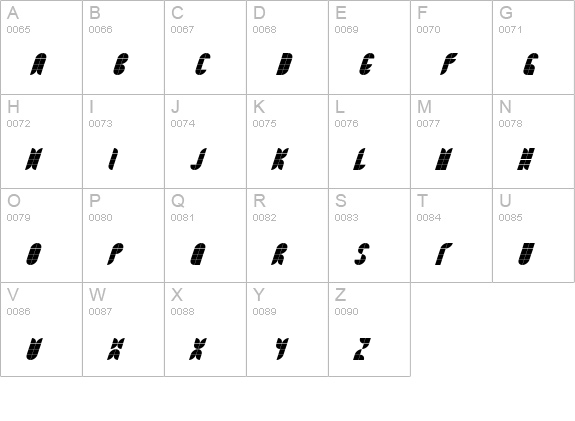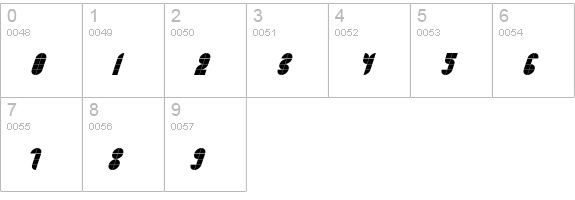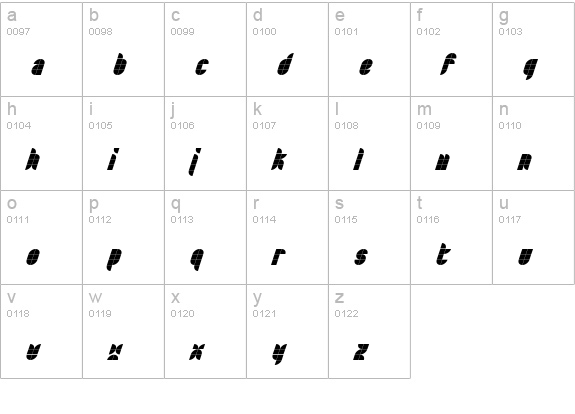
Bath HeavyItalic is a beautifully designed font that exudes elegance and sophistication. With its bold and stylish italicized characters, this typeface is perfect for creating eye-catching designs that demand attention. The sleek curves and sharp angles of Bath HeavyItalic make it a versatile choice for a wide range of projects, from branding to editorial design. The best part? Bath HeavyItalic is available for free download at FontsMarket.com. This means you can add this stunning font to your collection without spending a dime. Whether you're a seasoned designer looking for a fresh addition to your font library or a beginner searching for the perfect typeface to elevate your work, Bath HeavyItalic is sure to meet your needs. Download it today and start creating stunning designs that stand out from the crowd.